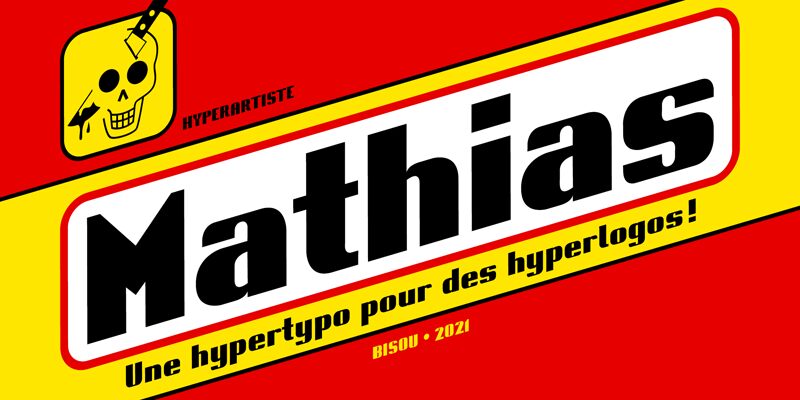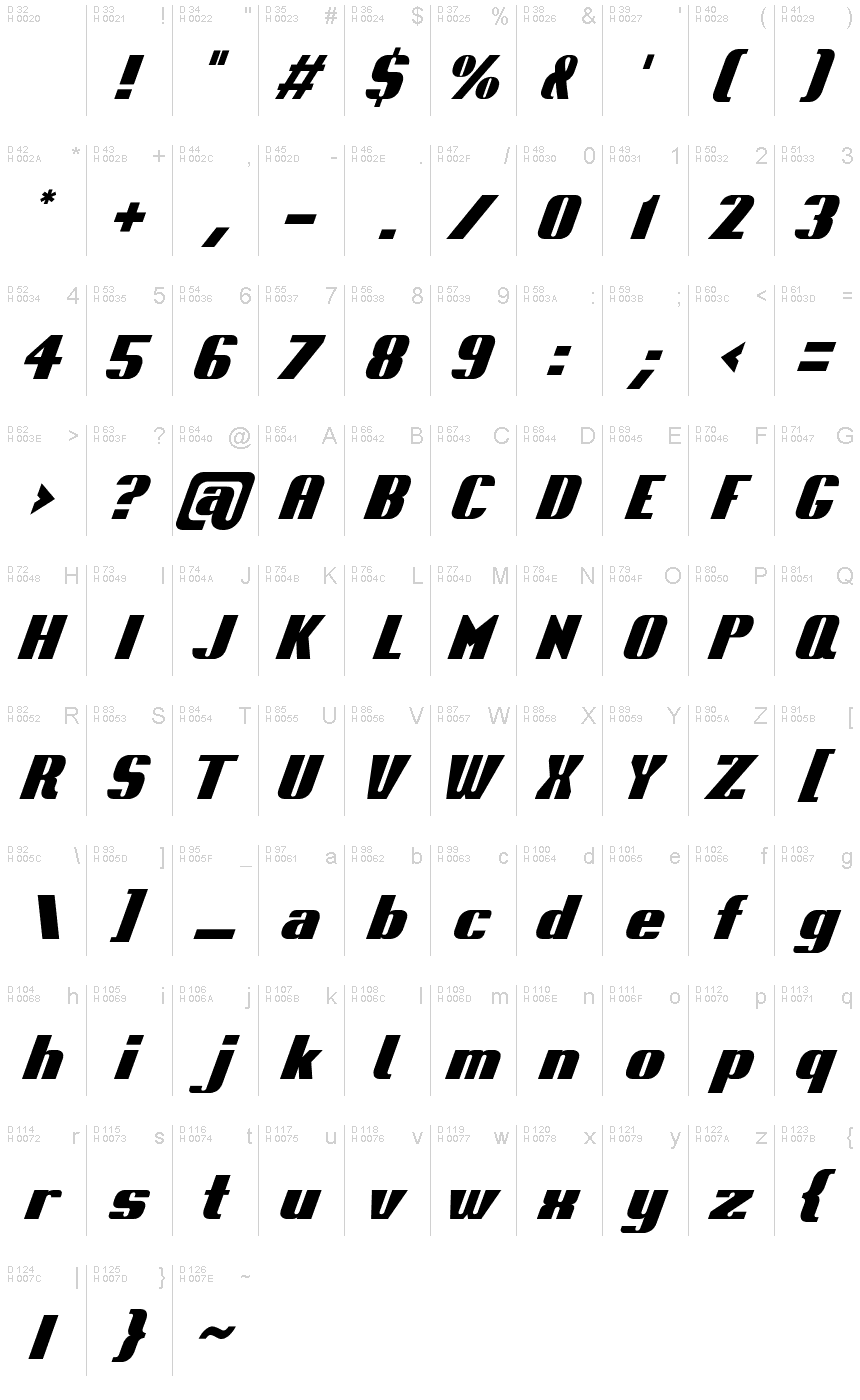
MathiasItalique
Mathias Italique is a bold and retro display font from the Mathias family, designed by Bisou. With its distinctive style, this font is perfect for projects that aim to evoke nostalgia or capture the essence of the past.
Use Mathias Italique to add a vintage touch to posters, album covers, or branding materials. Its bold weight commands attention and ensures your message stands out. Let Mathias Italique transport your audience back in time with its unique retro charm and eye-catching design.